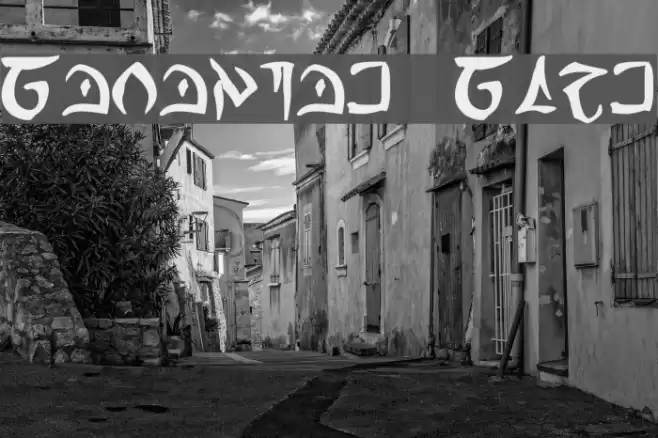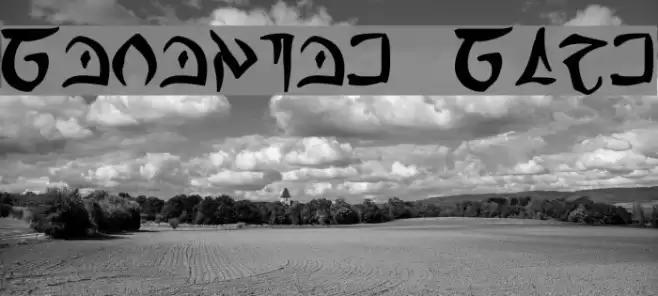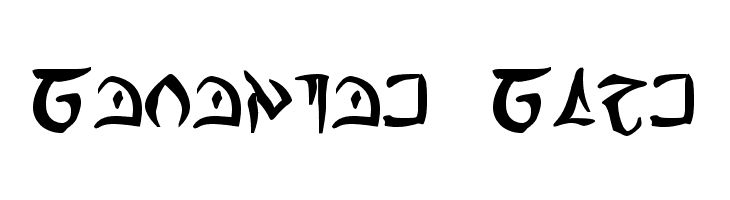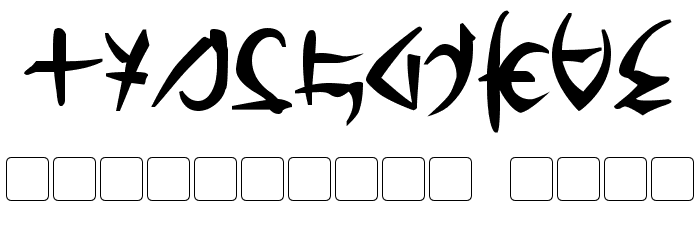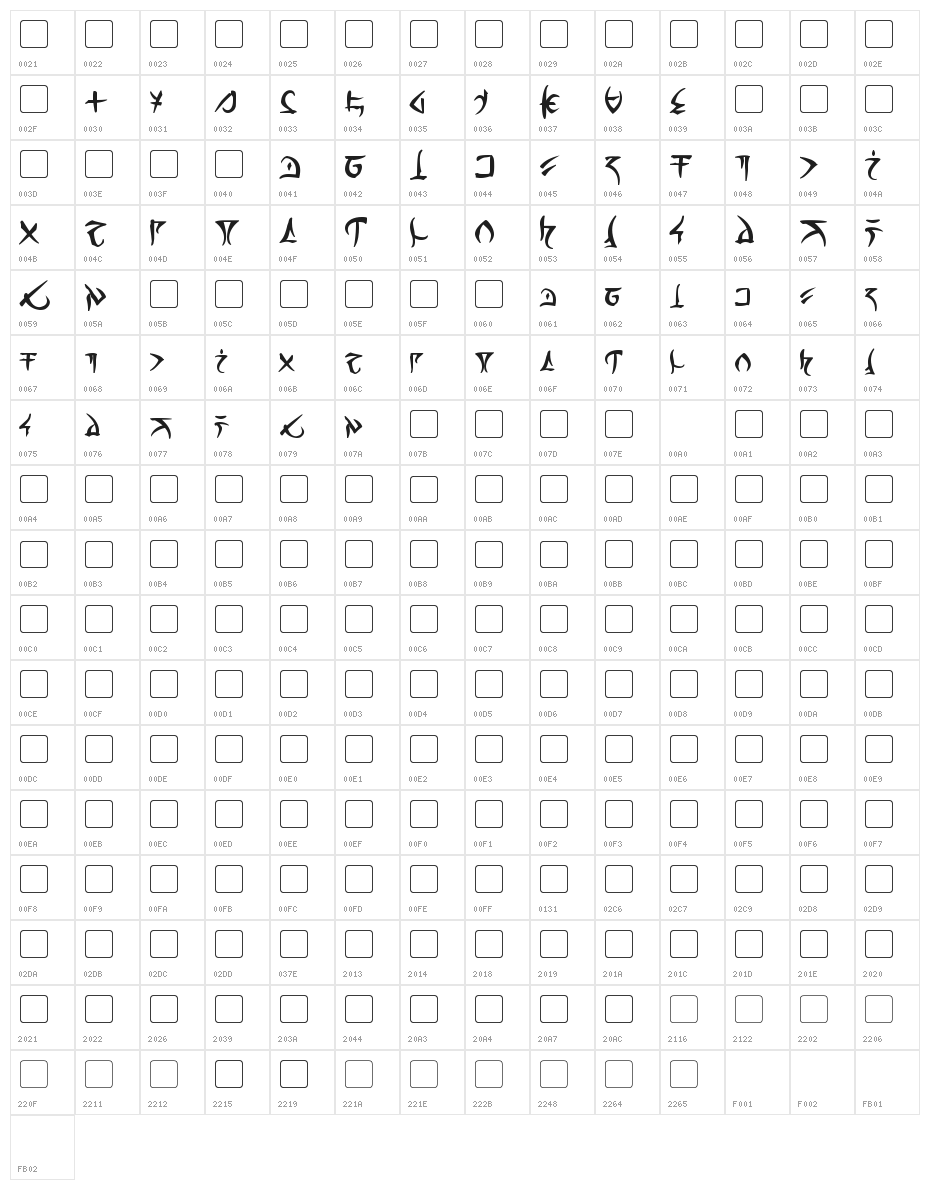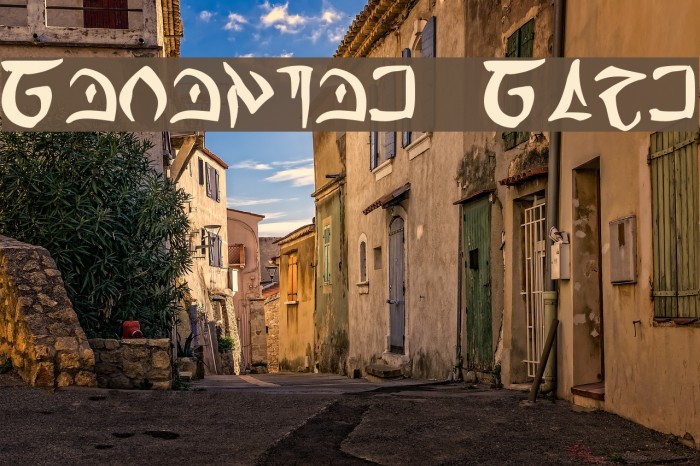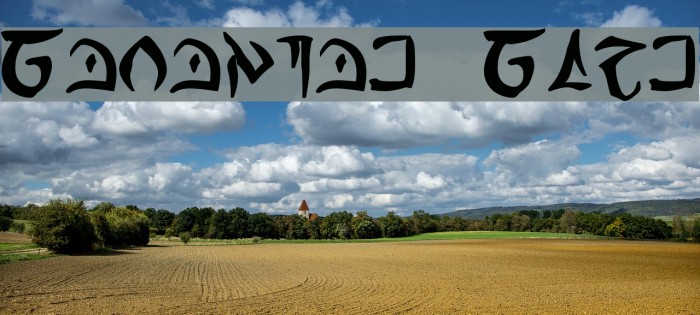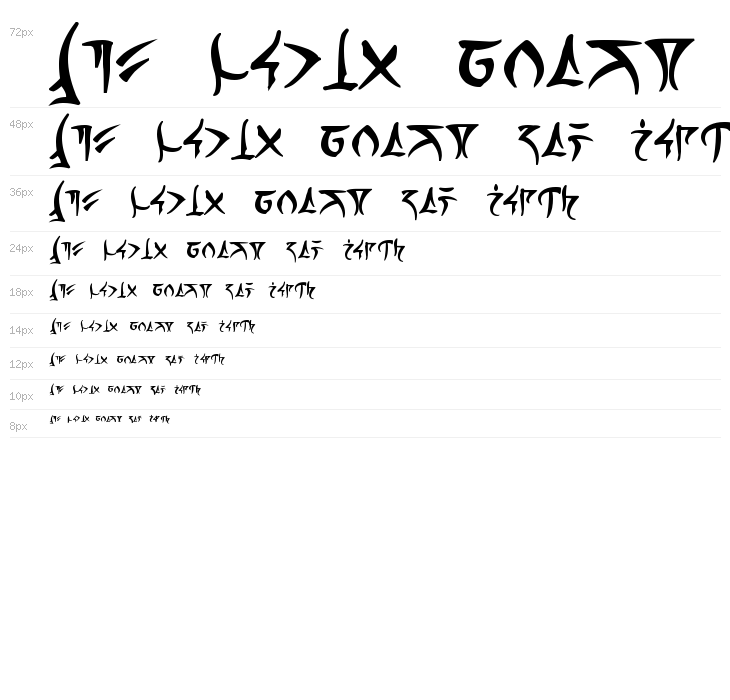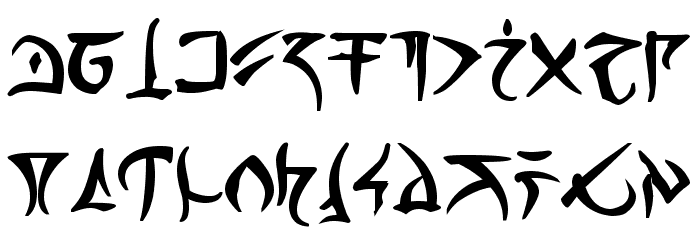
Barazhad Bold Font
Barazhad Bold Description
This font features a unique and intricate design, reminiscent of ancient scripts or fantasy languages. The characters are bold and angular, with sharp edges and dramatic curves that create a sense of mystery and otherworldliness. Each letter is distinct, with a high level of detail that suggests careful craftsmanship. The overall appearance is both decorative and functional, making it suitable for projects that require a touch of the exotic or the mystical. The font's boldness ensures it stands out, while its intricate design invites closer inspection.
A bold, intricate font with an ancient, mystical appearance from Uncategorized fonts.
- Proposed Projects: Ideal for fantasy-themed projects, game design, book covers, or any creative work requiring an exotic, mysterious touch.
- Use Case: Logos, Headlines, Creative projects